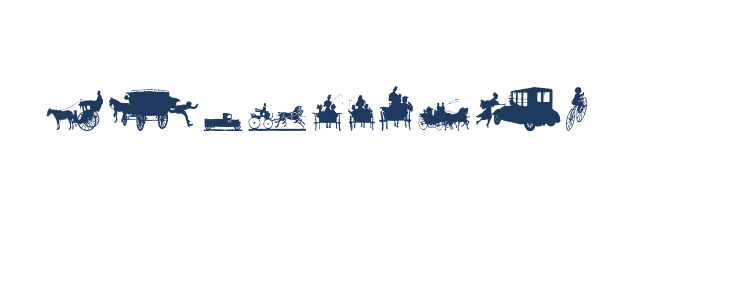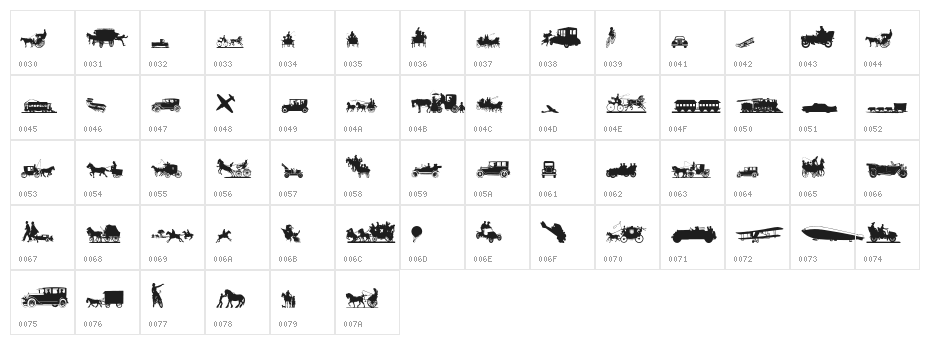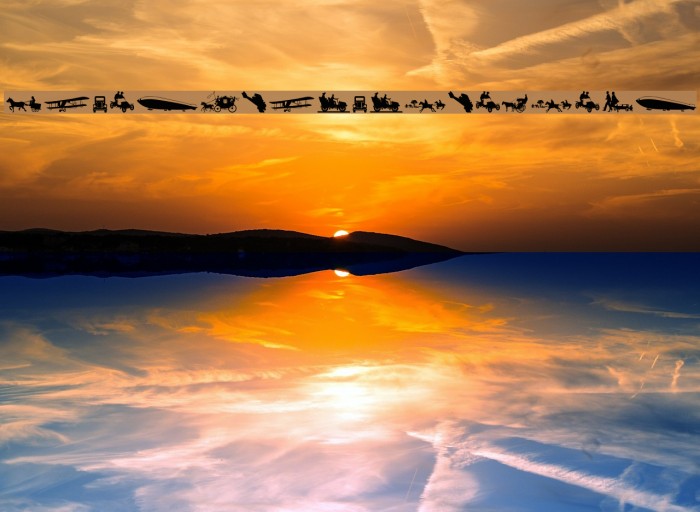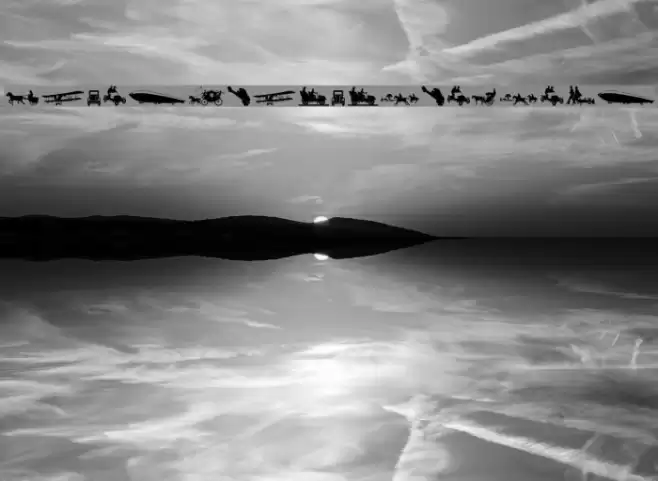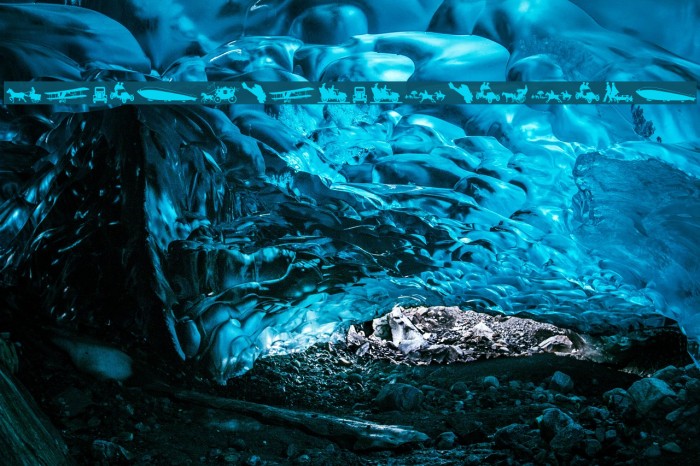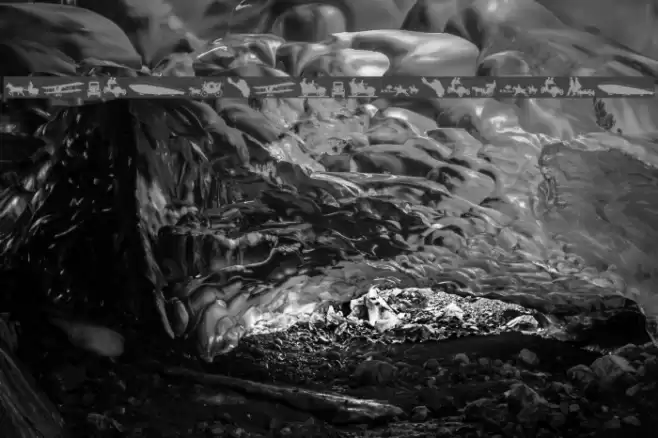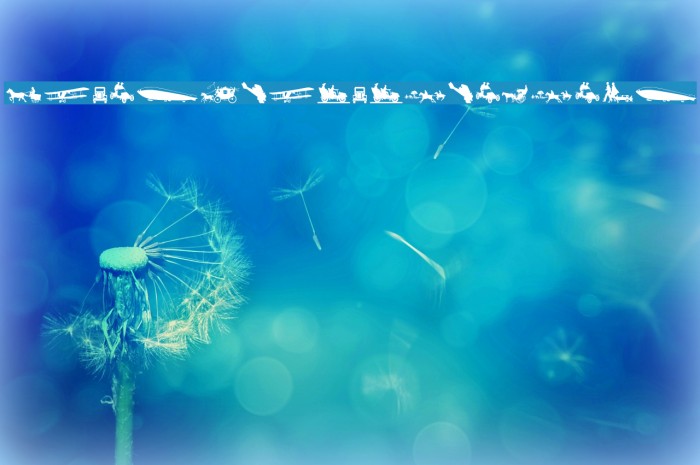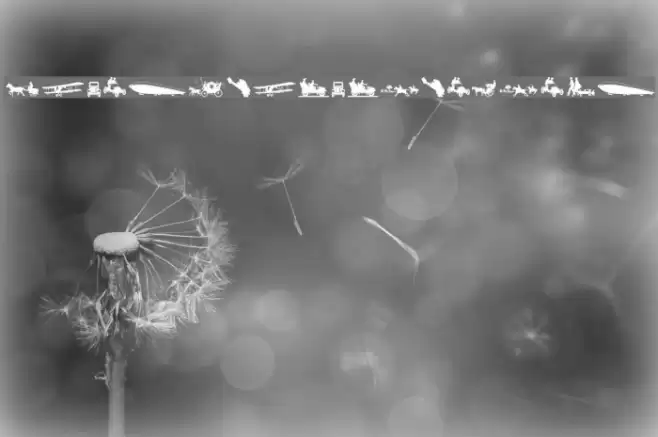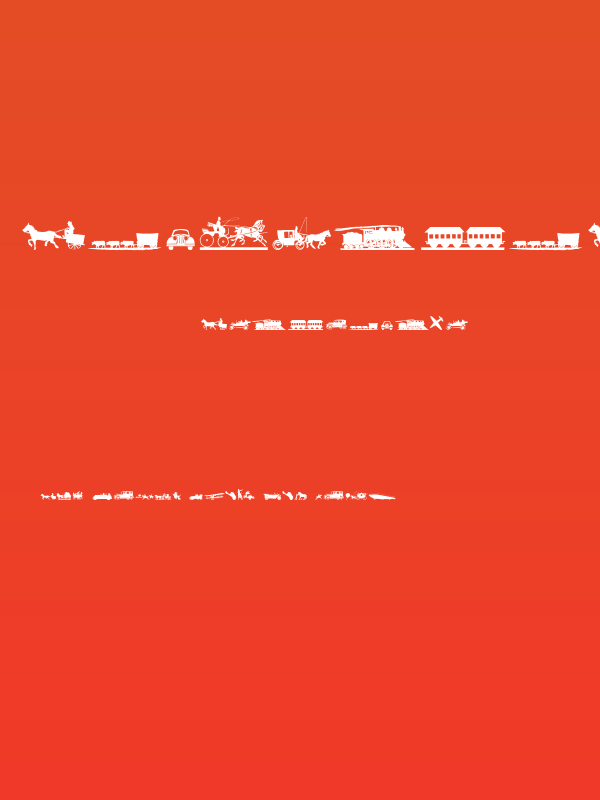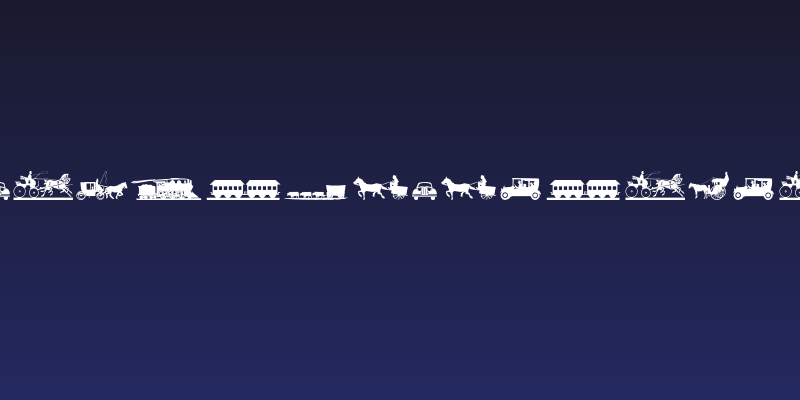
TransportationDings Font
This collection features a diverse array of transportation-themed dingbats, showcasing silhouettes of various vehicles and modes of transport. The designs include classic cars, horse-drawn carriages, bicycles, trains, and more, each rendered in a detailed, illustrative style. The silhouettes are bold and distinct, making them easily recognizable and suitable for decorative purposes. The variety of transportation modes depicted offers a nostalgic glimpse into different eras of travel, from vintage automobiles to traditional horse-drawn carts. These dingbats are perfect for adding a thematic touch to projects related to travel, history, or transportation.
| Use Case | Decorative elements, Thematic designs, Educational materials |
| Proposed Projects | Ideal for travel-themed designs, historical presentations, educational materials, and decorative elements in graphic design projects. |